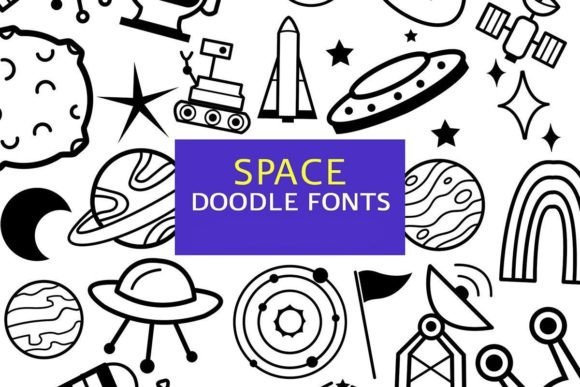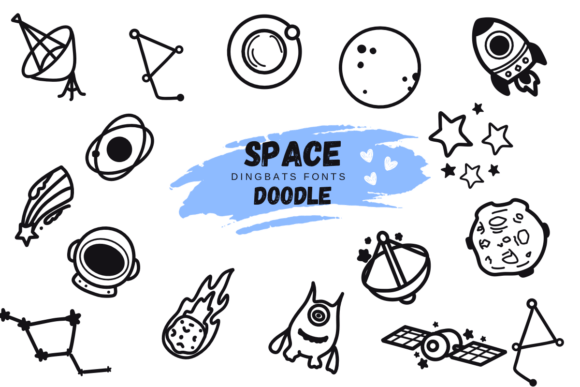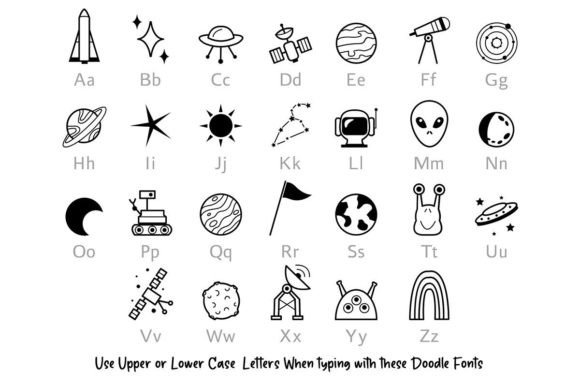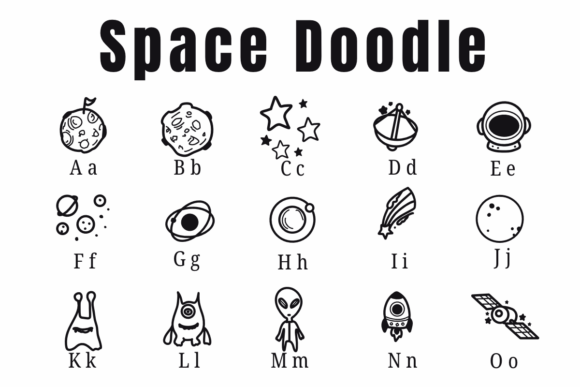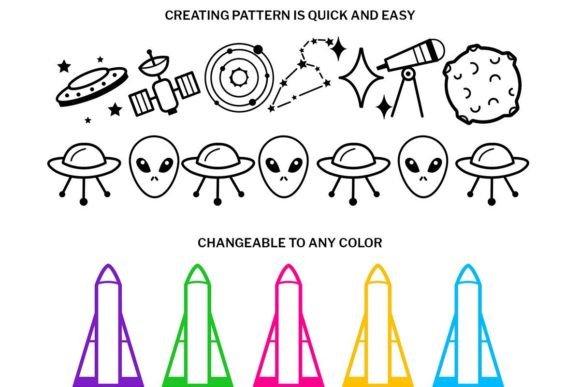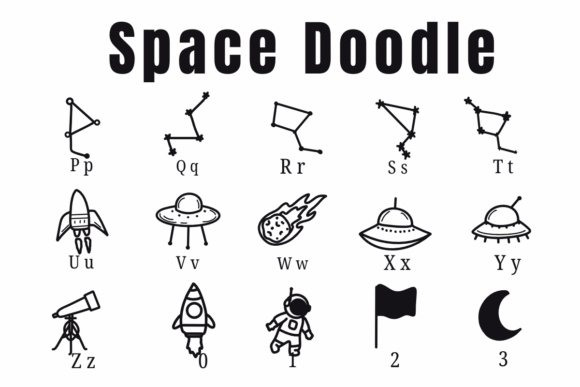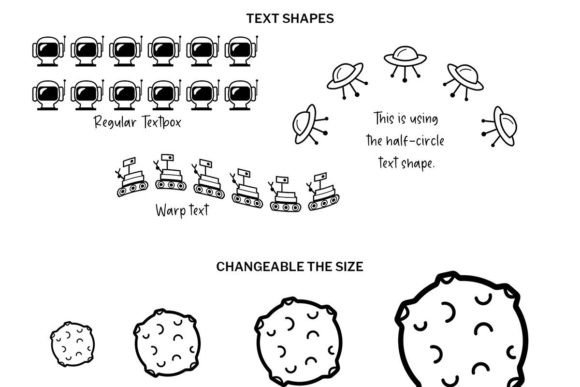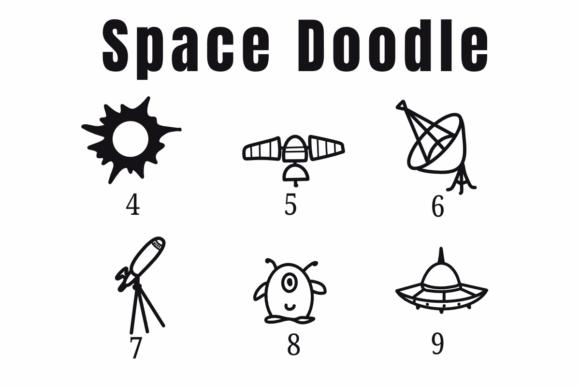
Space Doodle Font
About the Space Doodle Font
Get ready to be inspired by Space Doodle Font, a fresh and dynamic typeface for modern creators. Space Doodle is a dingbats font with a celestial theme. This font can enhance your creative projects such as wedding invitations, DIY, crafts, decorations, logos, and many other creative ideas.
Space Doodle Font Usage Examples
Space Doodle Font Example